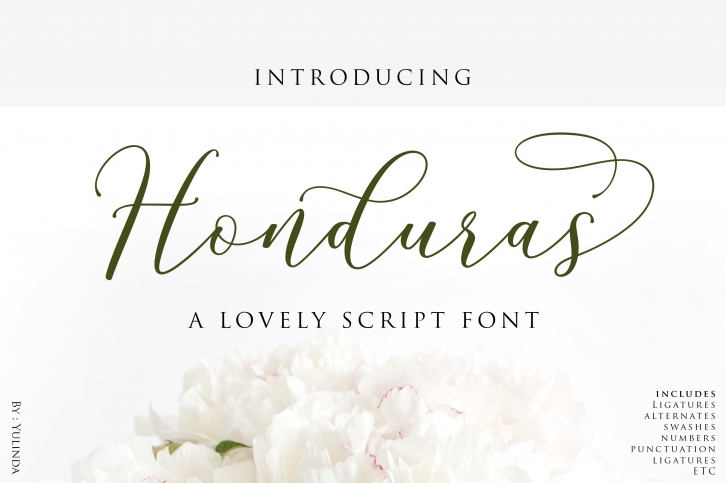
Introduce Honduras Script Font is modern script font, every single letters have been carefully crafted to make your text looks beautiful. With modern script style this font will perfect for many different project ex: quotes, blog header, poster, wedding, branding, logo, fashion, apparel, letter, invitation, stationery, etc.